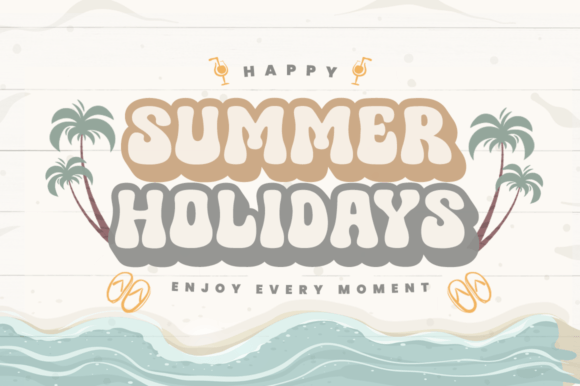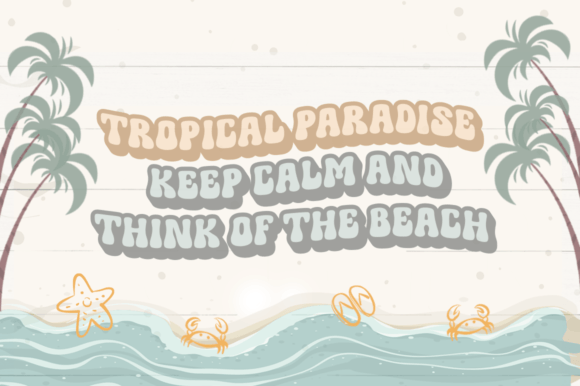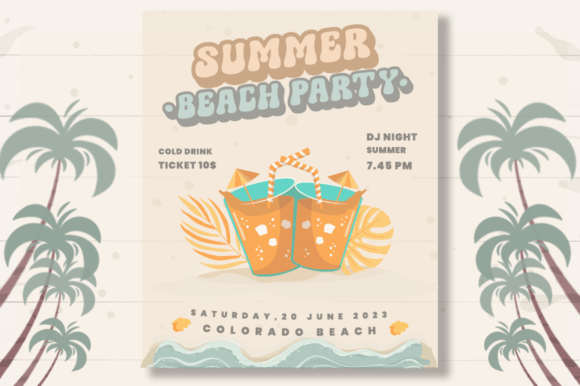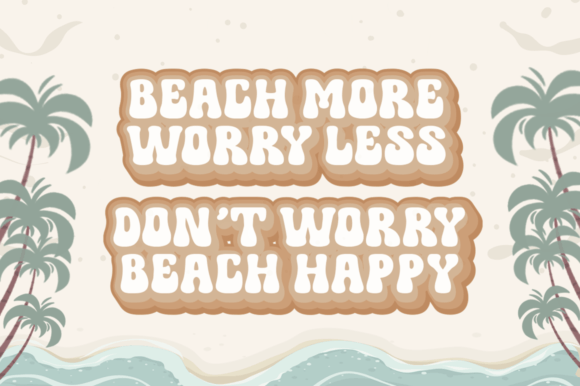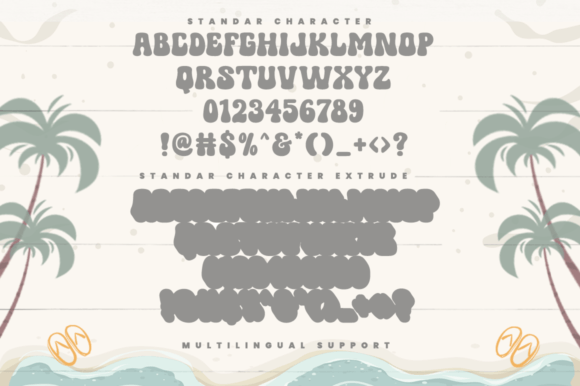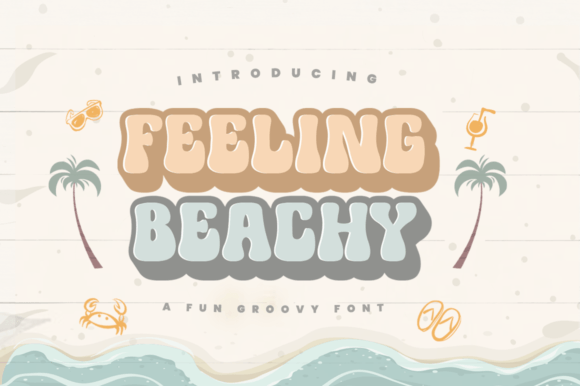
Feeling Beachy Font: The Grooviest Retro Display Font for Your Design Needs
Are you a designer or crafter looking for a font that captures the essence of the beachy vibe? Look no further than the Feeling Beachy font! This retro display font is perfect for creating groovy-themed graphics that will transport your audience to a bygone era of sun-kissed beaches, flower power, and laid-back cool.
What is Feeling Beachy Font?
Feeling Beachy is a carefully crafted retro display font that embodies the spirit of the 1960s and 1970s beach culture. Its unique design features bold, playful lettering with a distinctive flair that’s reminiscent of vintage beach signs, posters, and advertisements.
Key Features of Feeling Beachy Font
• Retro aesthetic: Feeling Beachy font boasts a distinctly retro look that’s perfect for creating graphics that evoke a sense of nostalgia and fun.
• Groovy vibe: This font is designed to capture the laid-back, carefree essence of the beach culture, making it ideal for designs that require a dash of playfulness and whimsy.
• Display font: Feeling Beachy is a display font, which means it’s designed to make a statement. Use it to create eye-catching headlines, titles, and captions that demand attention.
• Versatile: This font can be used for a wide range of design projects, from posters and flyers to social media graphics, logos, and branding materials.
Why Use Feeling Beachy Font?
So, why should you choose Feeling Beachy font for your design projects? Here are just a few compelling reasons:
• Add a touch of nostalgia: The Feeling Beachy font is a great way to add a touch of nostalgia to your designs, transporting your audience back to a bygone era of fun and freedom.
• Stand out from the crowd: With its unique, retro aesthetic, Feeling Beachy font is sure to make your designs stand out from the crowd and grab attention.
• Perfect for beach-themed designs: As its name suggests, Feeling Beachy font is perfect for beach-themed designs, but it’s also versatile enough to be used for a wide range of other projects, from music festivals to summer camps.
Tips for Using Feeling Beachy Font
To get the most out of Feeling Beachy font, here are a few tips to keep in mind:
• Pair with groovy colors: Feeling Beachy font is even more effective when paired with groovy colors that match its retro vibe. Try combining it with bright, bold hues like pink, blue, and yellow.
• Use it sparingly: As a display font, Feeling Beachy is best used sparingly to create a bold, eye-catching statement. Use it for headlines and titles, and choose a simpler font for body text.
• Experiment with textures and patterns: To add an extra layer of depth and interest to your designs, try experimenting with textures and patterns that match the beachy vibe.
Who Can Benefit from Feeling Beachy Font?
Feeling Beachy font is perfect for a wide range of designers and crafters, including:
• Graphic designers: Whether you’re working on a client project or creating your own designs, Feeling Beachy font is a great addition to your font library.
• Crafters: If you’re a crafter who loves making beach-themed crafts, such as seashell jewelry or beach signs, Feeling Beachy font is a great way to add a professional touch to your projects.
• Social media influencers: If you’re a social media influencer who loves creating engaging content, Feeling Beachy font is a great way to add a touch of personality to your posts and stories.
In conclusion, Feeling Beachy font is a fantastic addition to any designer’s or crafter’s toolkit. Its unique, retro aesthetic and groovy vibe make it perfect for creating beach-themed designs that are sure to capture attention and evoke a sense of nostalgia. So why not give it a try and see how it can elevate your designs to the next level?